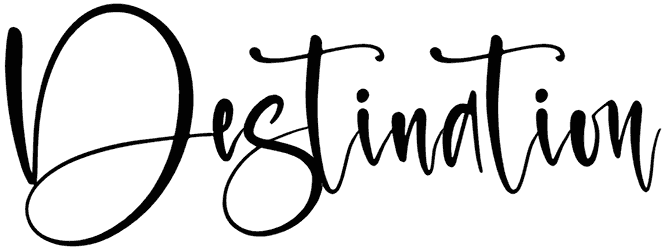
You can shake up all your artwork by departing your safe plain zone and utilizing a fabulous script font such as California, which comes with elongated and crooked surfaces.
The shining clue about this scrapbook font is that it is qualified of creating a personalized touch and a vibe of friendly or dynamic together with a mystery on any greeting cards, headlines, book covers, or web pages. To access more of this category, dig out RB!